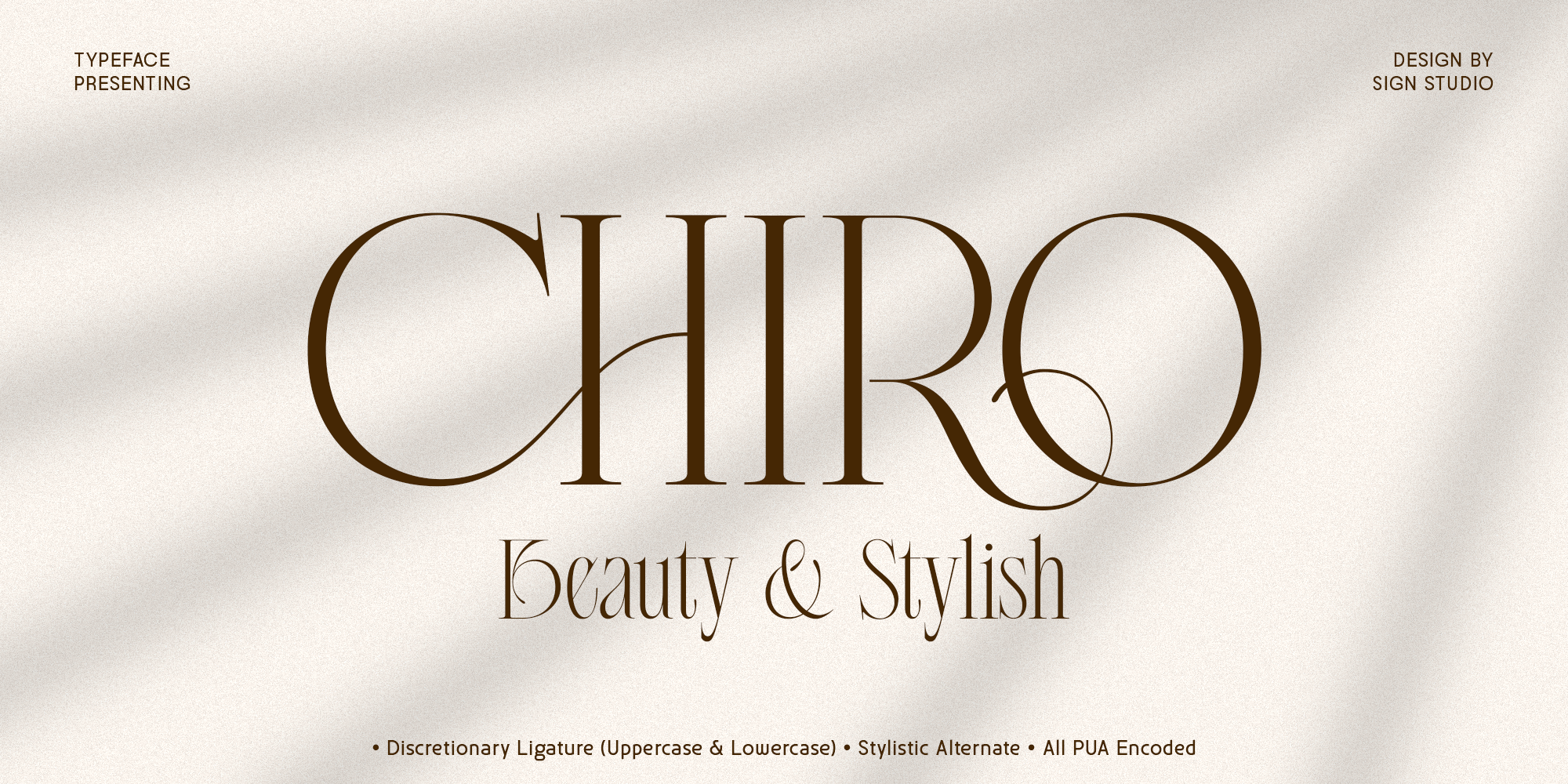
Looking for a clean and elegant typeface that blends modernity with simplicity? Chiro Font Free Download is perfect for branding, editorial design, websites, and product packaging that require a sophisticated yet approachable look. Its sleek lines and balanced proportions provide excellent readability and timeless appeal.
Whether you’re designing corporate materials, lifestyle blogs, or minimalist posters, Chiro Font Free Download adds a touch of class and clarity to your typography.